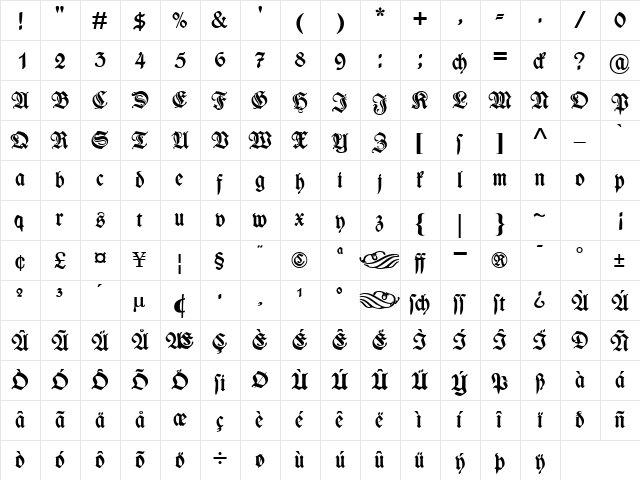
WieynkFrakturZier Bold
| Designer | Dieter Steffmann |
Design Context for WieynkFrakturZier Typeface
WieynkFrakturZier draws on the rich tradition of blackletter calligraphy, with dense, angular strokes that evoke medieval manuscripts and old-world craftsmanship. The heavy weight commands attention and anchors typographic hierarchies.
Well-suited to band logos, craft beer branding, tattoo lettering, and heritage-themed identities.
Font Pairing: Pair with a clean neutral sans-serif for body copy to let WieynkFrakturZier's character lead without overwhelming the composition.
Pro Tip: Use WieynkFrakturZier sparingly at large sizes. Even a single word set in blackletter can define the visual register of an entire design.